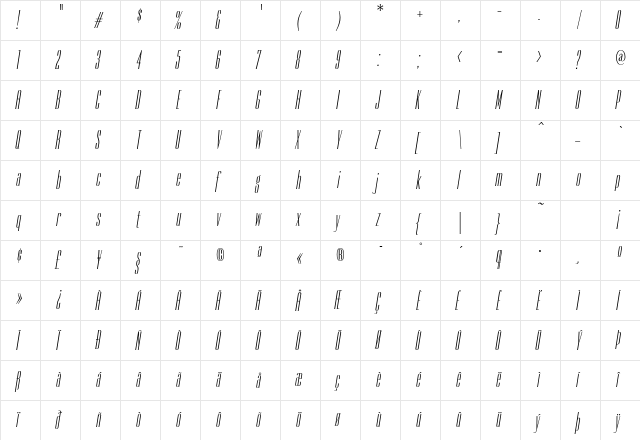
Bureau Empire FB Italic
Design Context for Bureau Empire FB Typeface
Bureau Empire FB takes a measured approach to typography — its balanced proportions and neutral character make it a reliable workhorse for both digital and print work. The dynamic lean of this cut emphasises speed and emphasis in any layout.